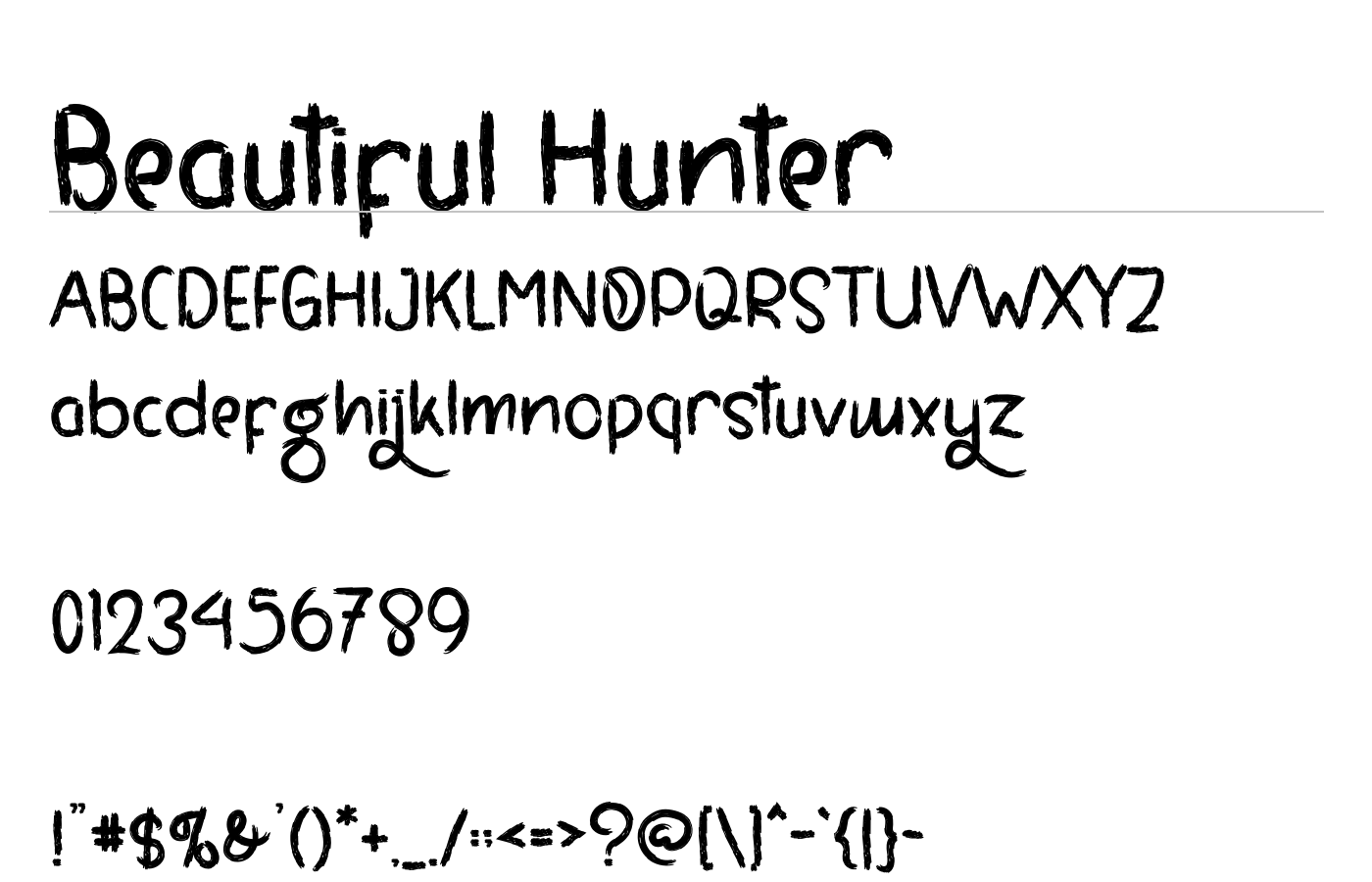
Beautiful Hunter is a playful, hand-drawn sans serif font with a textured, slightly rough stroke that gives it a casual and artistic feel. Its quirky letterforms, with unique shapes and uneven lines, make it perfect for creative projects, informal branding, or designs that need a warm, approachable vibe. This font works well for posters, logos, and packaging where a personal and lively touch is desired.
Beautiful Hunter Font
About Beautiful Hunter Font
| Font family | Beautiful Hunter Font |